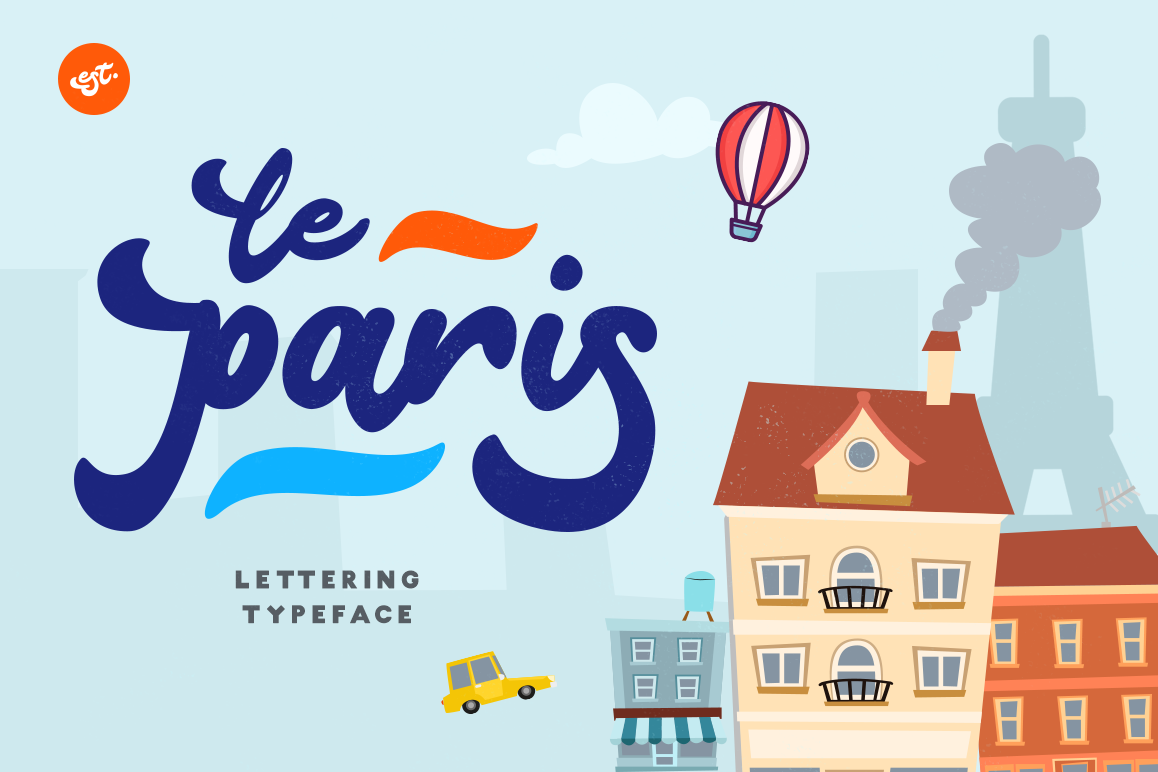
Le Paris Lettering Typeface
Le Paris - A fun type set inspired from a lot of amazing resources from handletterer artist in Instagram.
Produced to give that hand lettering look, which adds more personality to your work. In the download you get a Le Paris Set, include a Swash and Premade Lettering Artwork. A solid face and a sans which look great in your social media present, logo and branding or other creative fun projects, even you can easily costumize the set as your style. Combining all these styles can generate many different typographic layouts for packing, book covers or just quotes to post to your social media.I promise that you will enjoy the time you spent playing around with Le Paris, if not then get in contact and I'll give you one of my other products for free!